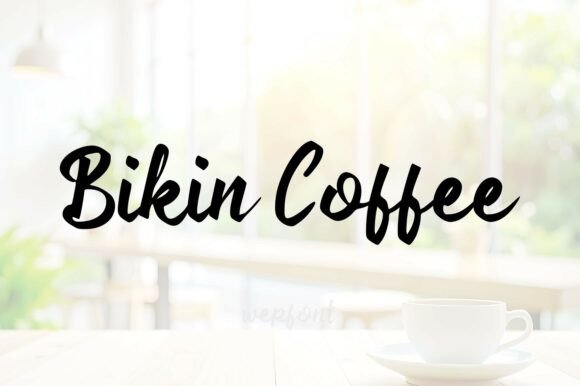
Steep Yourself in Cozy with Bikin Coffee Font
Ah, the quest for the perfect font – a journey every designer knows all too well. I recall working on a project for a quaint neighborhood café, searching for a font that embodied warmth and familiarity. The client wanted a menu that felt handcrafted, not mass-produced. That’s when I stumbled upon “Bikin Coffee”, a script font that instantly transported me to a cozy coffee shop on a chilly morning. Its flowing lines and casual, hand-drawn appearance seemed to whisper, “Welcome, friend!”
A Personal Review of Bikin Coffee
• ✅ The authentic, handcrafted feel that adds a personal touch to any project
• ✅ Subtle unevenness and natural connections between characters for a genuine vibe
• ✅ Perfect for coffee houses, bakeries, food-related brands, and craft makers
While Bikin Coffee is a beautiful font, there are a few things to keep in mind:
• 🤔 Limited character variations, which might not be ideal for very long texts
• ⚠️ May not be suitable for very formal or corporate projects, as it leans towards a more casual tone
The Story Behind Bikin Coffee
While the true story behind Bikin Coffee remains a mystery, it’s easy to imagine a designer sipping on a cup of joe, wanting to bottle the essence of that cozy moment in a font. Perhaps they strolled through a quaint neighborhood, taking in the sights and sounds of local cafes, and sought to recreate that magic in a digital form. Whatever the inspiration, Bikin Coffee is a testament to the power of typography to evoke emotions and create connections.
Q: What makes Bikin Coffee unique?
A: Bikin Coffee’s unique blend of flowing lines, casual hand-drawn appearance, and subtle unevenness sets it apart from other script fonts.
Q: Is Bikin Coffee suitable for long-form text?
A: While Bikin Coffee is a beautiful font, it may not be the best choice for very long texts due to limited character variations.